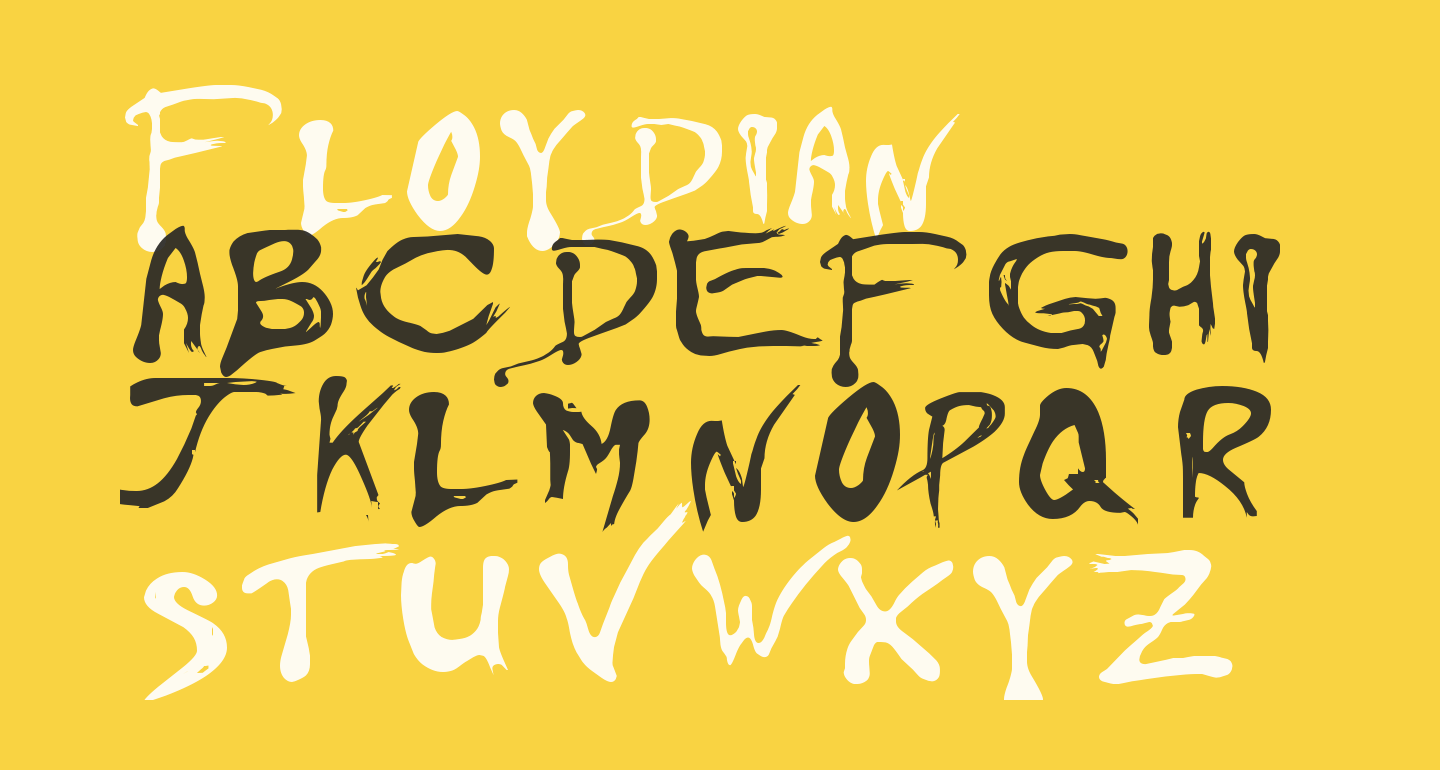
Pink Floyd Font Download. Touch device users, explore by touch or with swipe. The font is available in capital letters, numbers and limited punctuation.
The Name Of The Font That Is Used On The Pink Floyd Album Titled The Wall Is A Typeface By The Name Of Floydian.
But In A Long Project, You Can Use This Brush Font.
The Pink Floyd Font Is An Aesthetic And Lovely Typeface Is The Fonts Market.